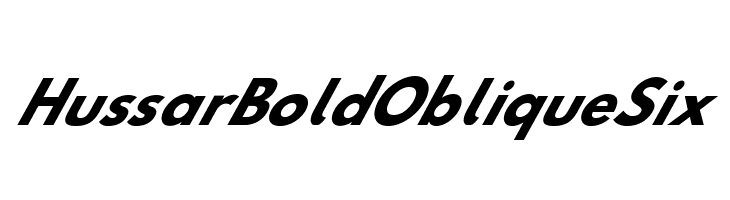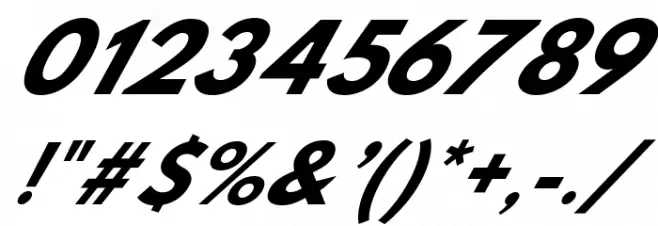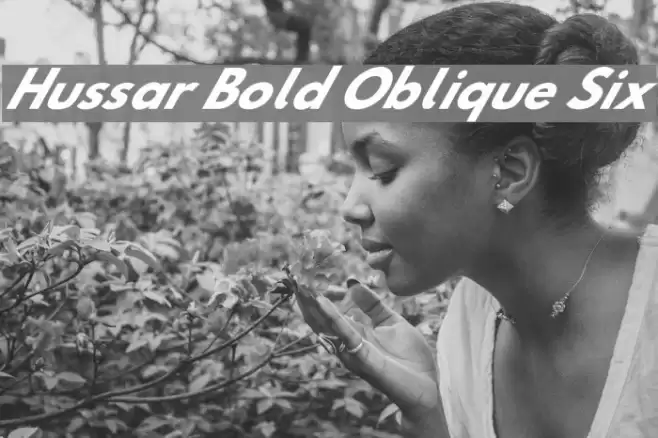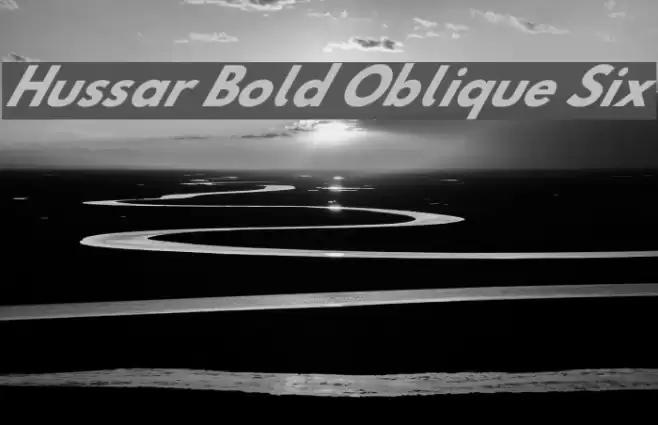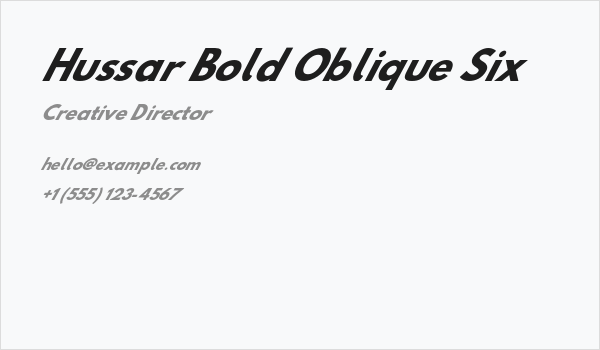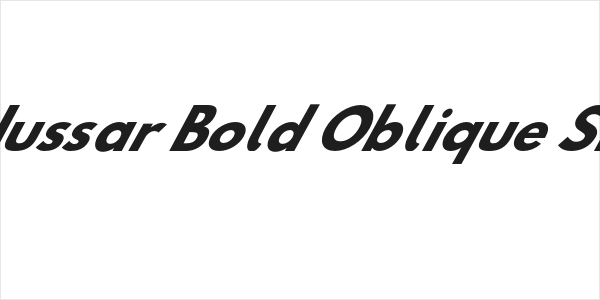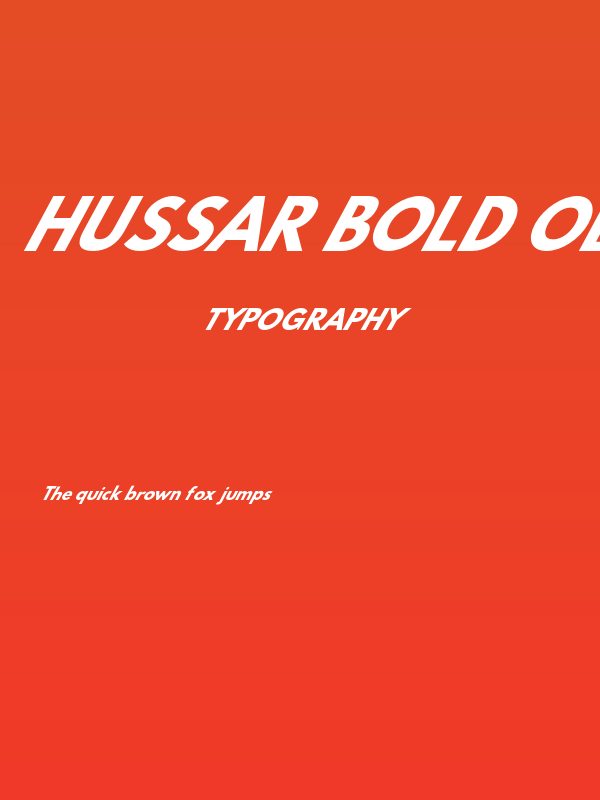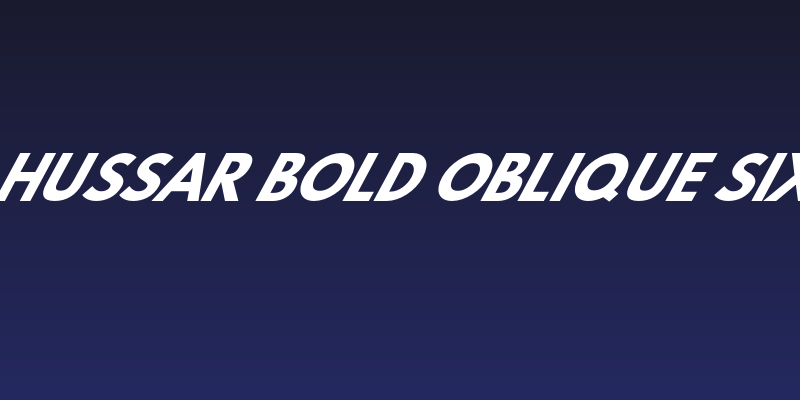
Hussar Bold Oblique Six Font
Hussar Bold Oblique Six Description
This font exhibits a bold and dynamic style with an oblique slant, giving it a sense of motion and energy. The characters are well-defined with a consistent stroke weight, providing a strong visual impact. The uppercase and lowercase letters maintain a uniform appearance, while the numerals and special characters complement the overall design. The font's boldness and slant make it suitable for attention-grabbing applications, ensuring readability and emphasis.
| Proposed Projects | Ideal for branding, advertising, headlines, and posters where a strong and dynamic presence is needed. |